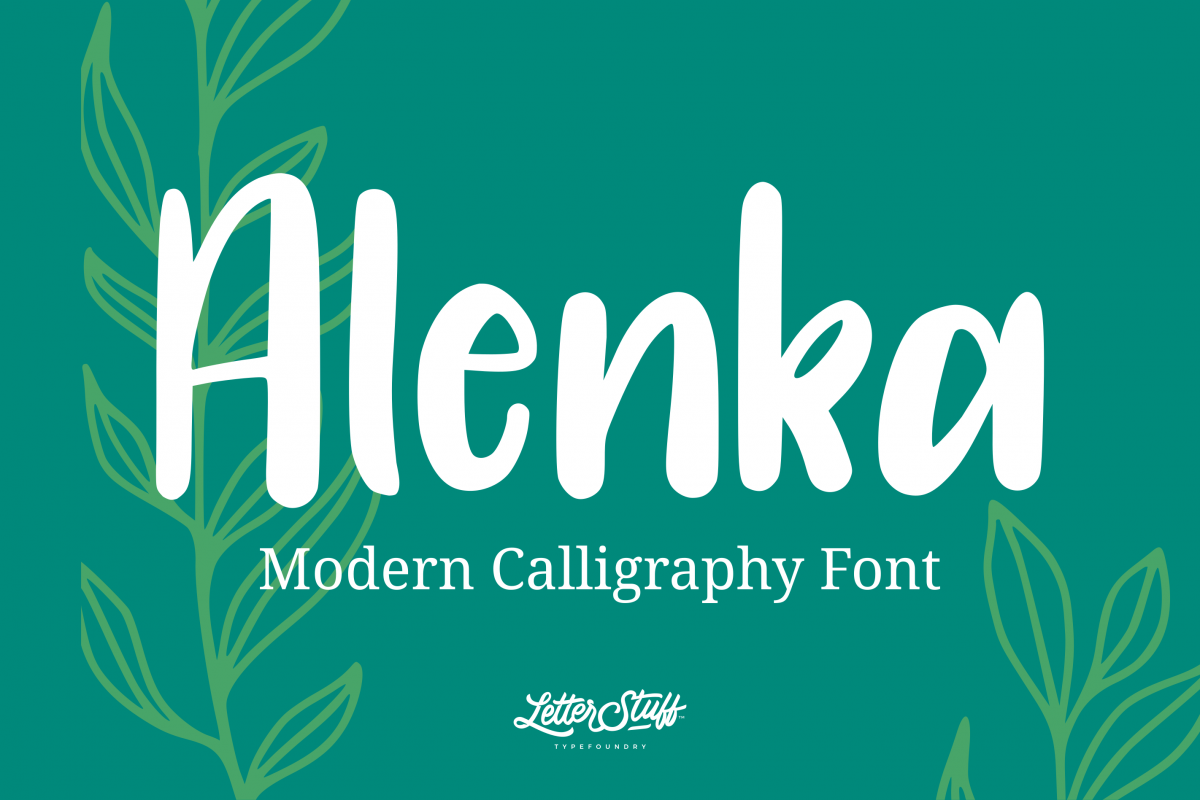
Alenka Handlettering Font
Introducing, Alenka Brush . An awesome typeface was inspired by modern handlettering calligraphy. You can create modern typography art for sale on totes, mugs, phone case, and more. Create eye catching logos, adorable invitations, and social media promo images and shareable quotes.
- Numeral & Punctuation
- More than 190 Glyphs
- Multilingual support : Afrikaans | Albanian | Danish | Dutch | German | Italian
Norwegian | Portugese | Spanisch | Swedish | Zulu